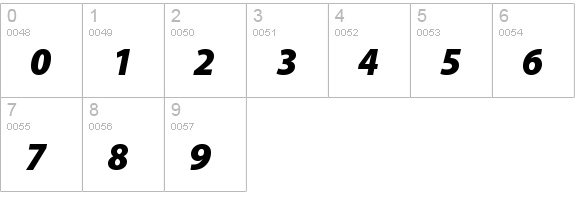
Myriad Pro Black SemiCondensed Italic Font Details
Myriad Pro Black SemiCondensed Italic is a maximum-weight, dramatic, italic variant in the Myriad typeface family \xE2\x80\x94 well suited to maximum-impact headlines, posters, and packaging.
The Myriad Pro Black SemiCondensed Italic font is a bold and modern typeface that exudes sophistication and elegance. With its slanted and condensed styling, this font is perfect for adding a touch of flair and drama to any design project. The sleek and sleek design of this font makes it ideal for headlines, banners, and other display purposes. What's even better is that this stunning font is available for free download at FontsMarket.com. So whether you're a professional designer looking to enhance your projects or a hobbyist wanting to experiment with new typography, the Myriad Pro Black SemiCondensed Italic font is a versatile and stylish option that won't cost you a dime. Download it today and elevate your designs with this eye-catching typeface.